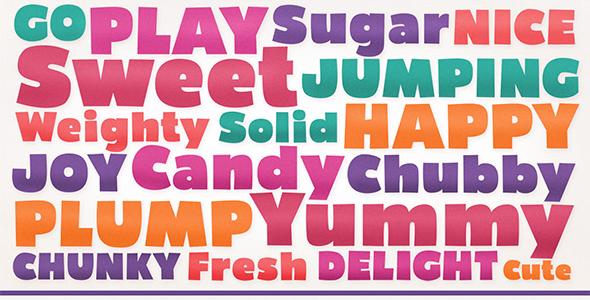
Bumpo Typeface
Bumpo is a chunky and a fun display typeface. With an extra heavy but friendly personality, Bumpo works well for posters, food packaging, children’s products and books, or any communications which needs to be friendly, fun, casual or loud. Download file contain both TTF and OTF files. Character Set includes A-Z(upper and lower), Numerals, Punctuations and Accents (Multilingual characters).